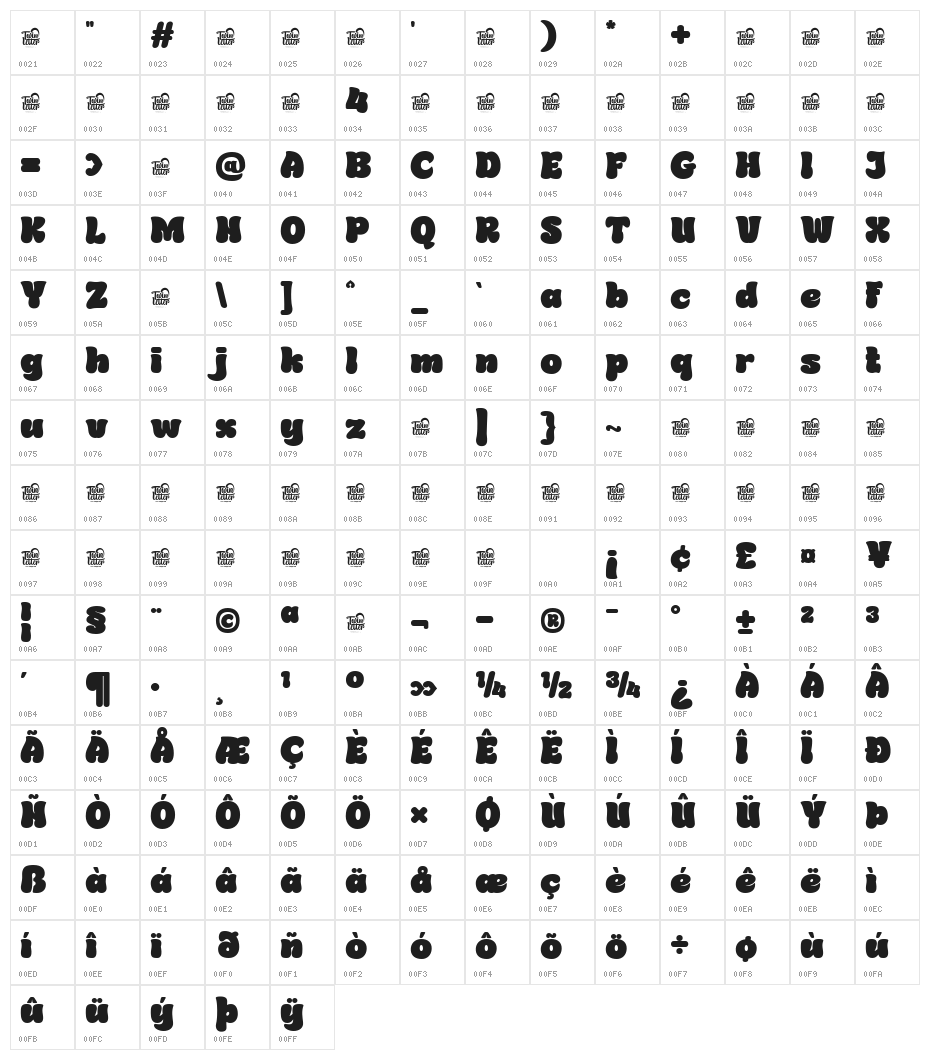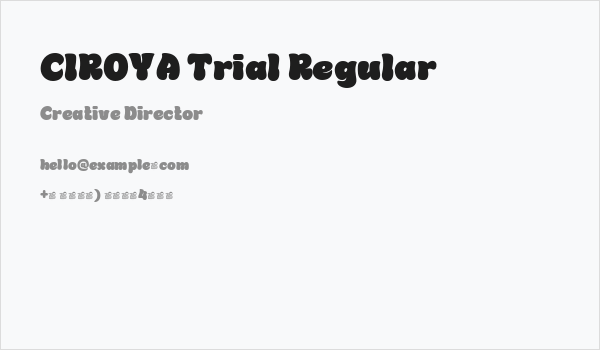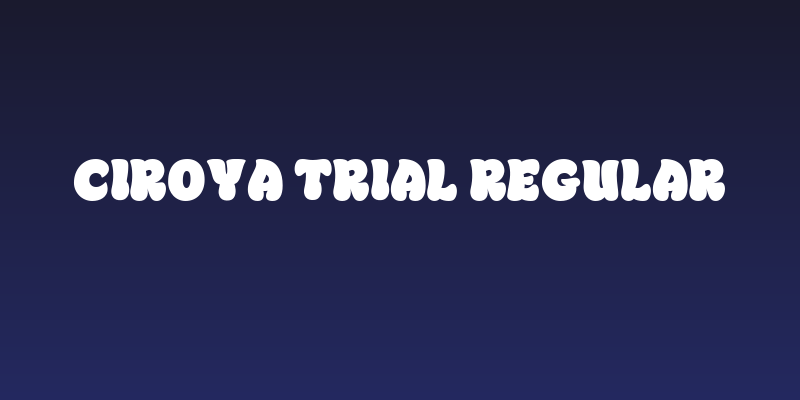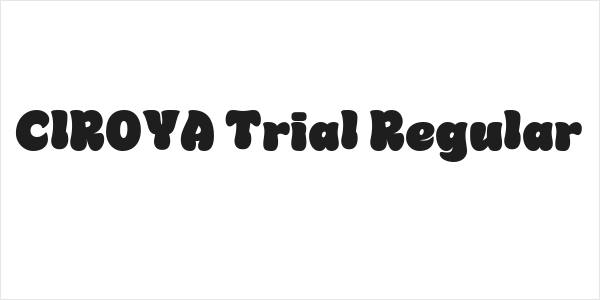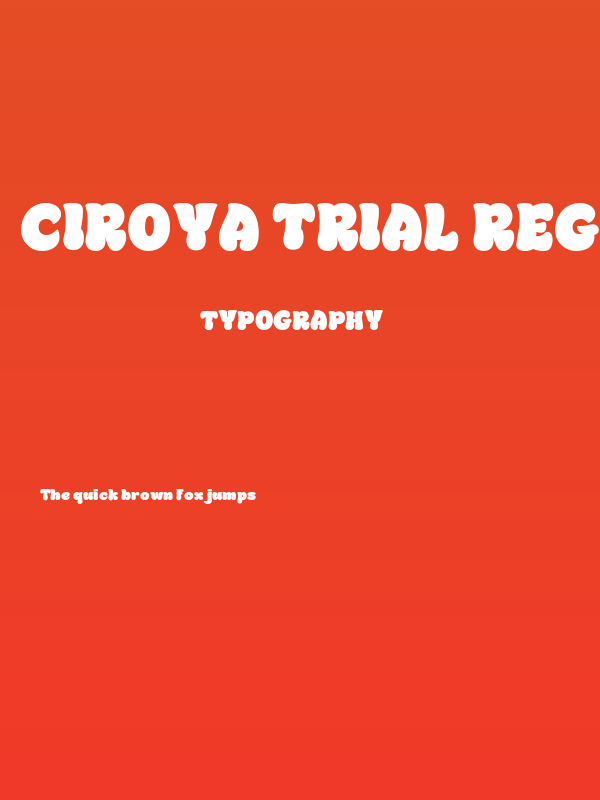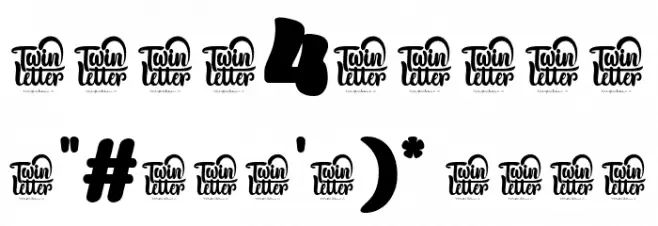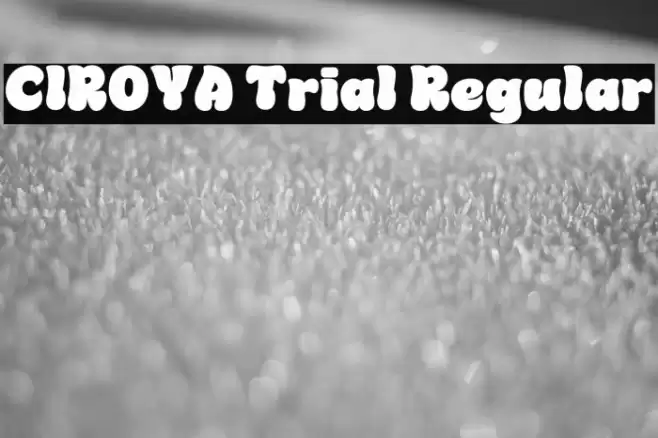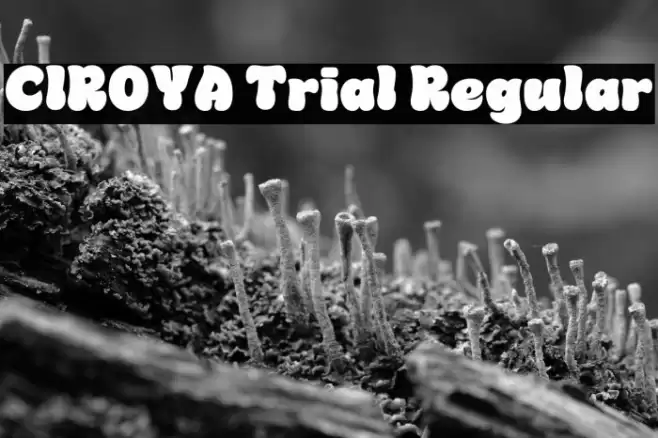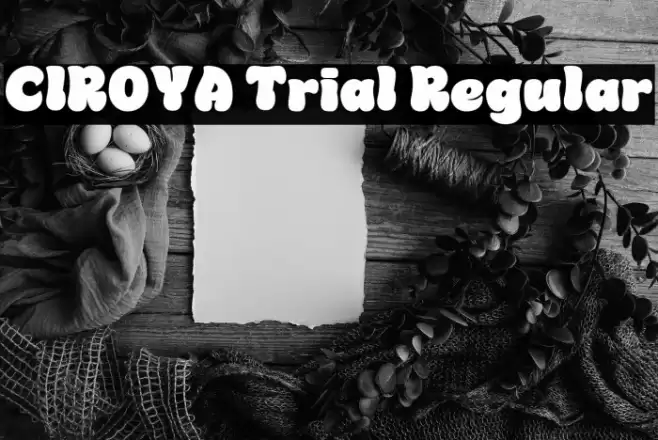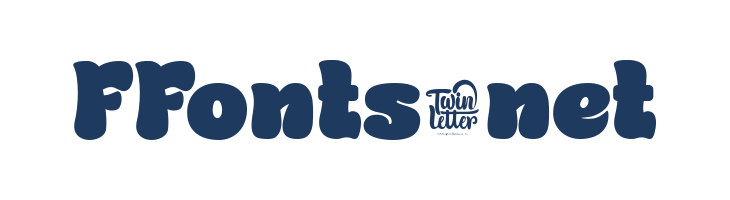
CIROYA Trial Regular Font
| Gesamtstil | Playful |
| Anwendungsfall | Logos, Headlines, Posters |
| Vorgeschlagene Projekte | Ideal for children's books, playful branding, party invitations, and creative posters. |